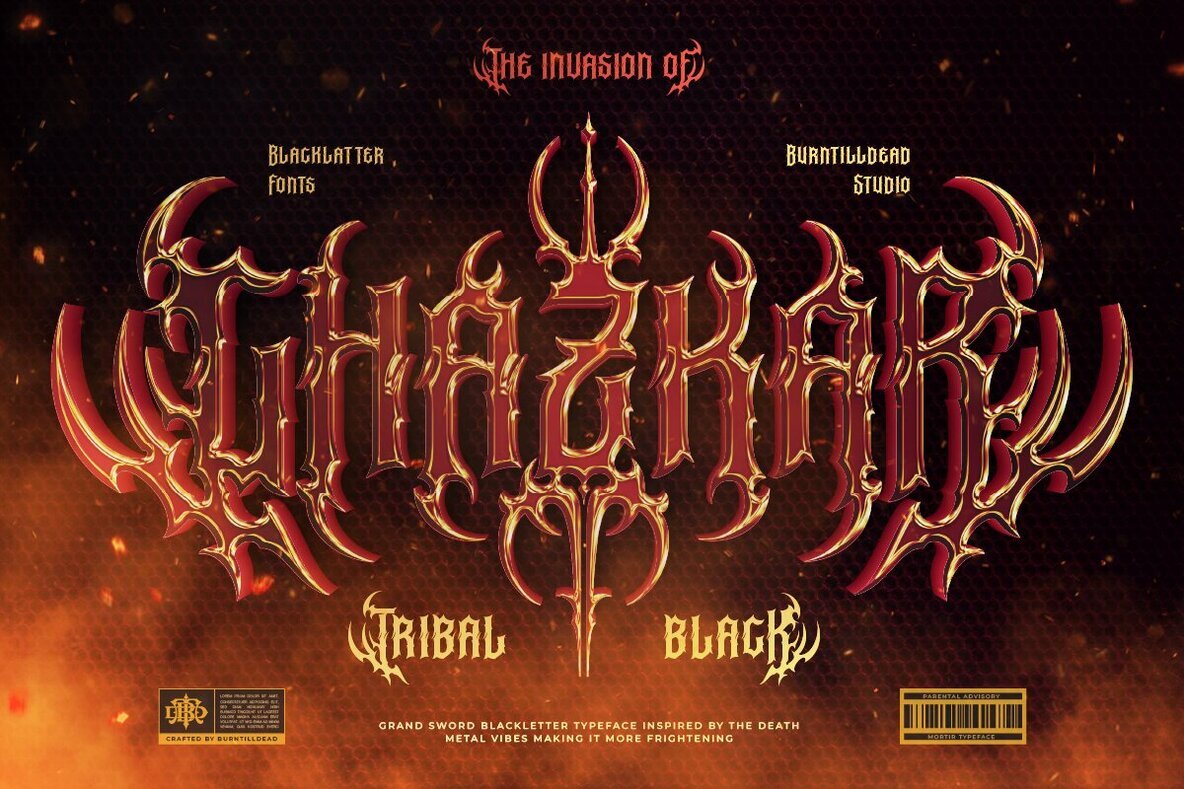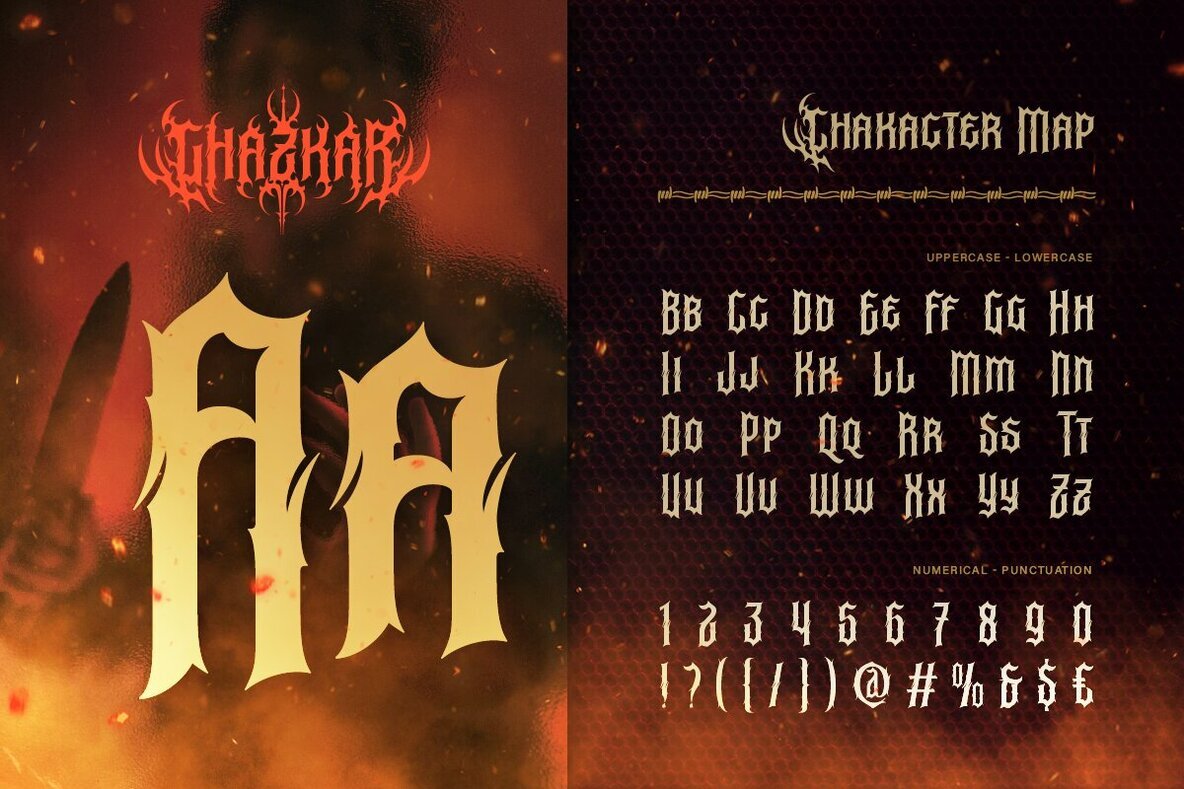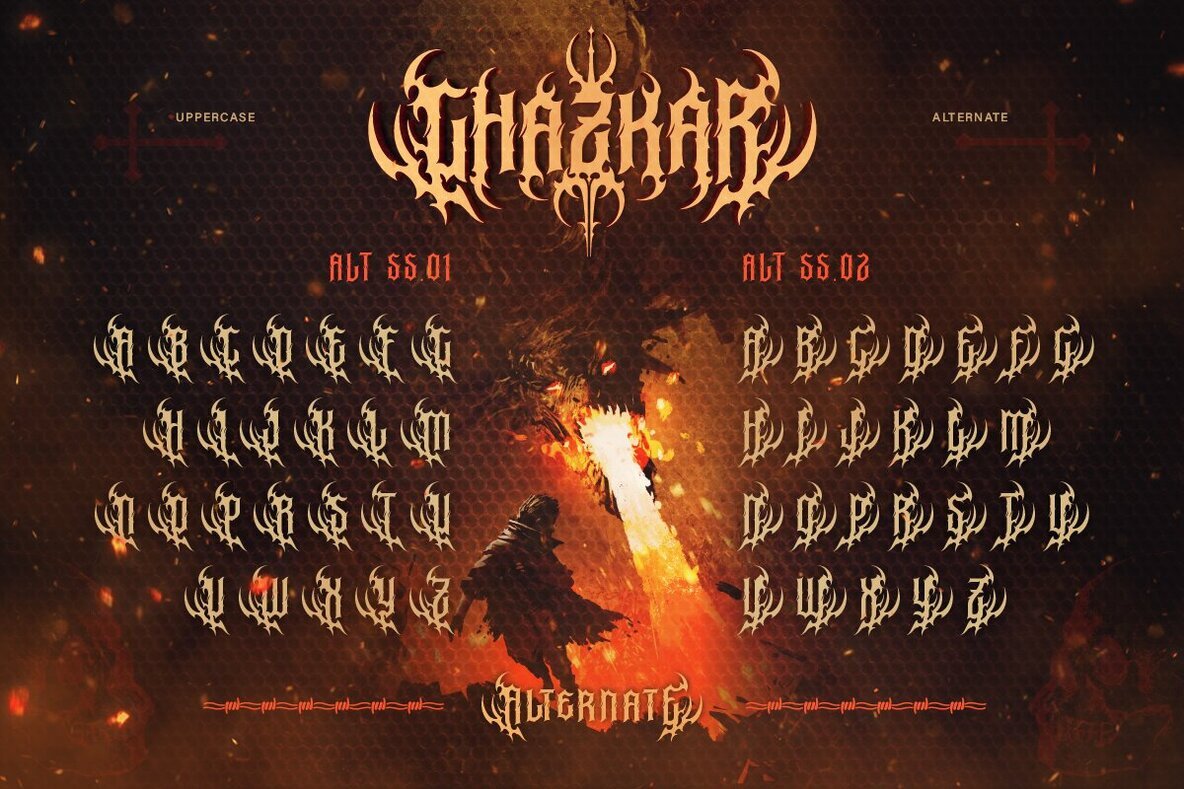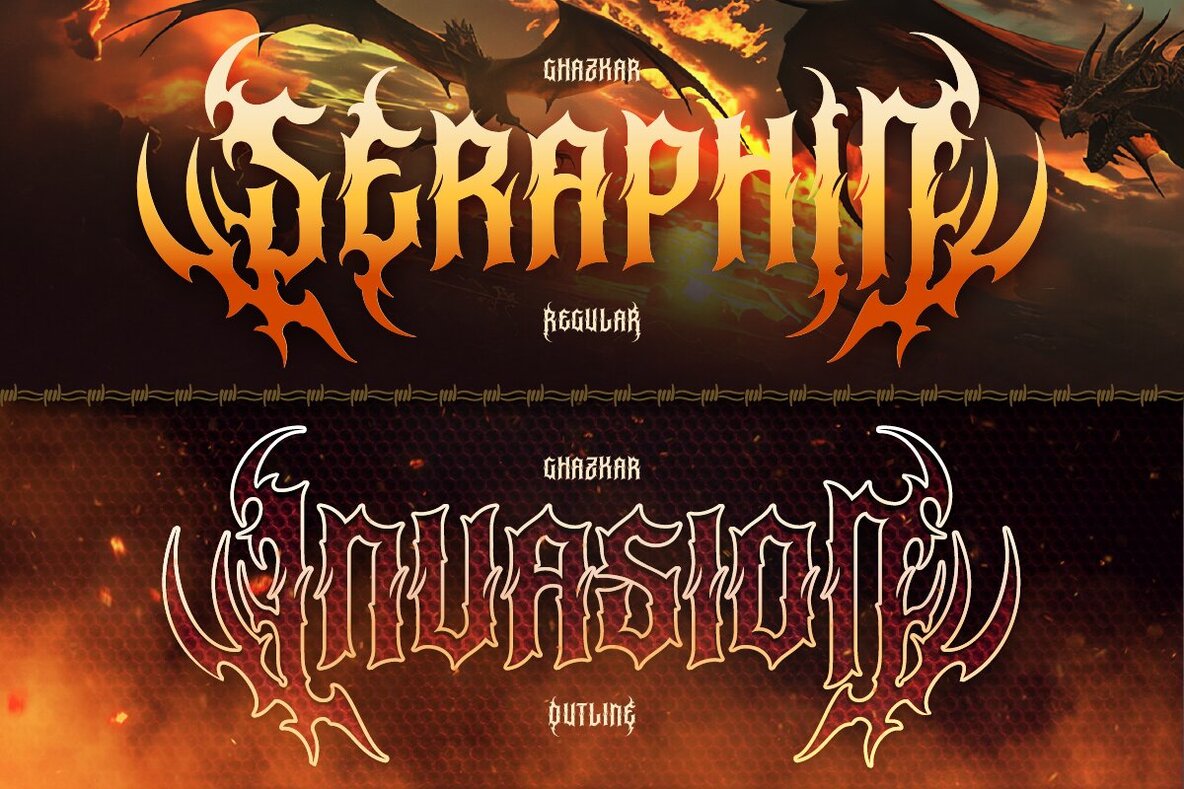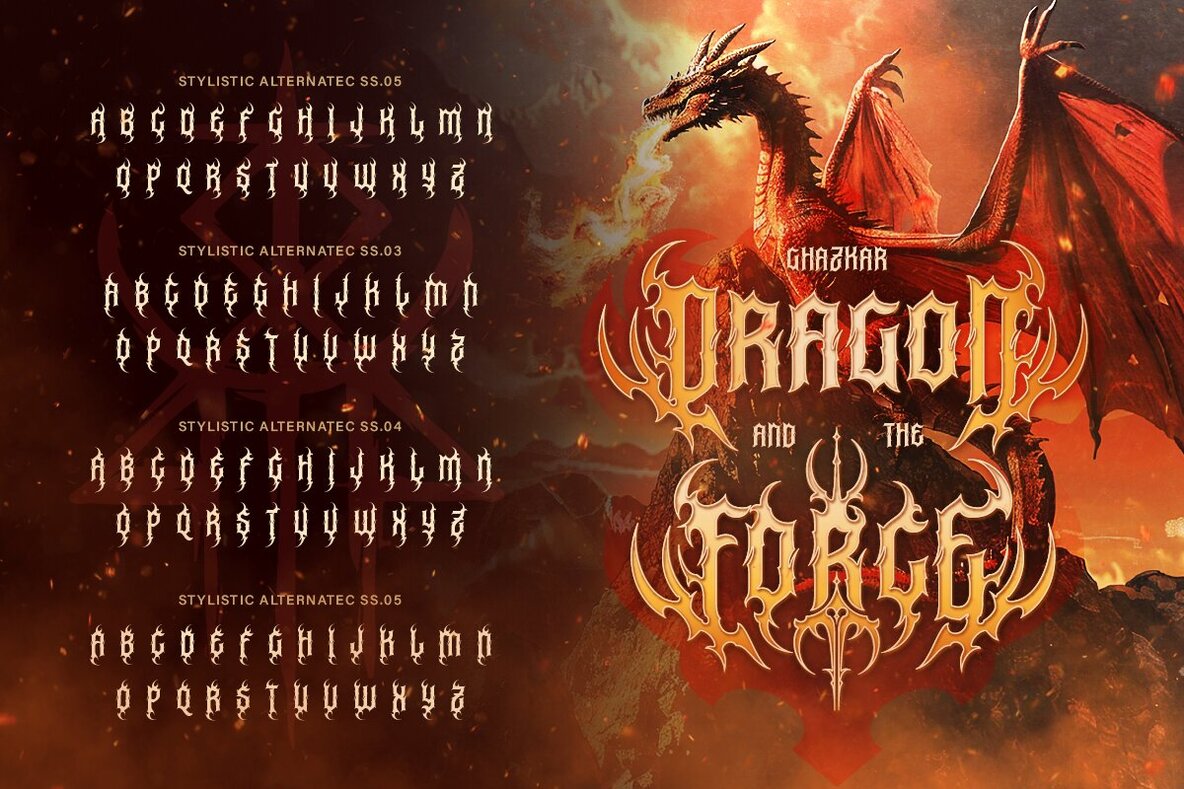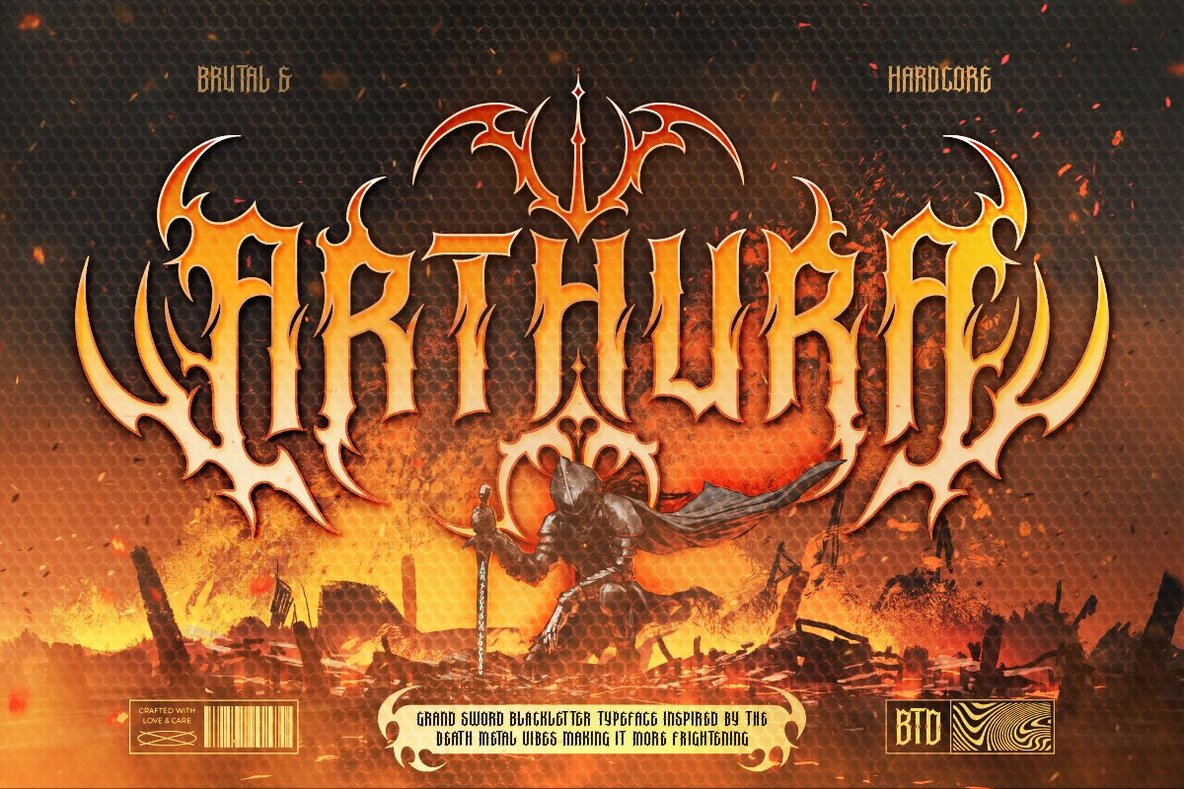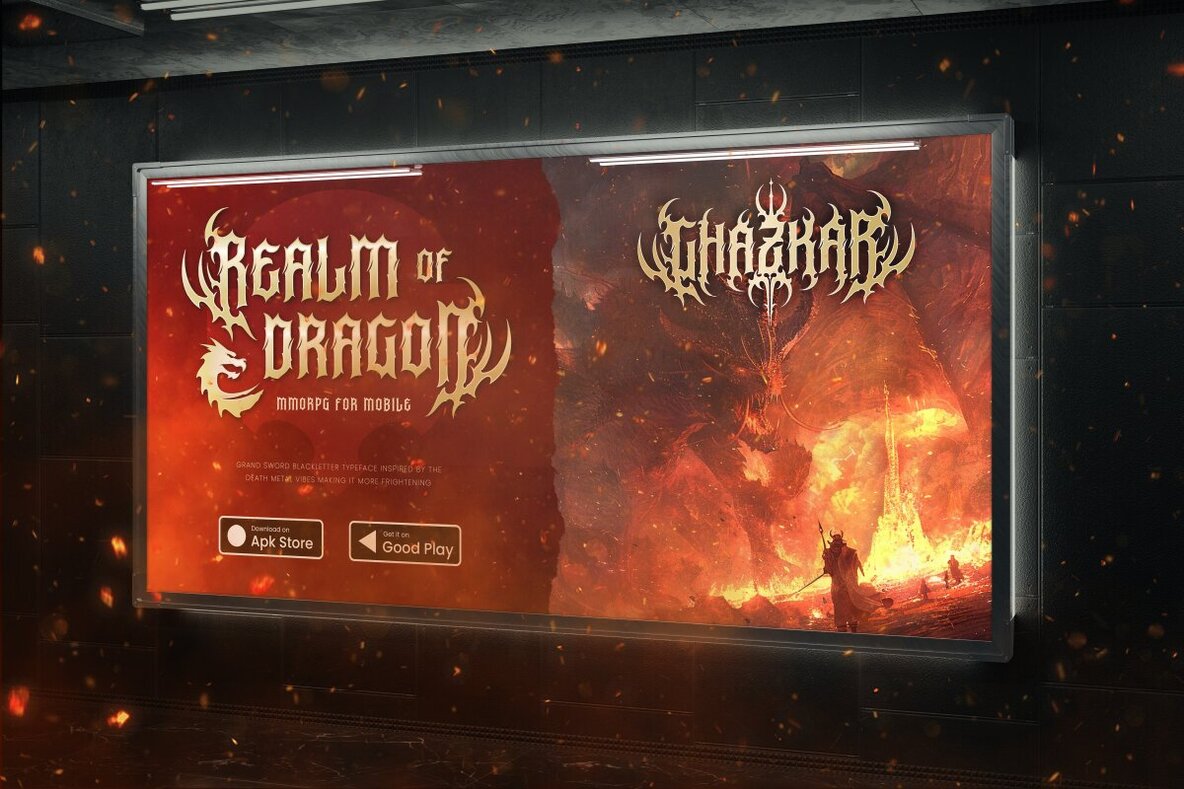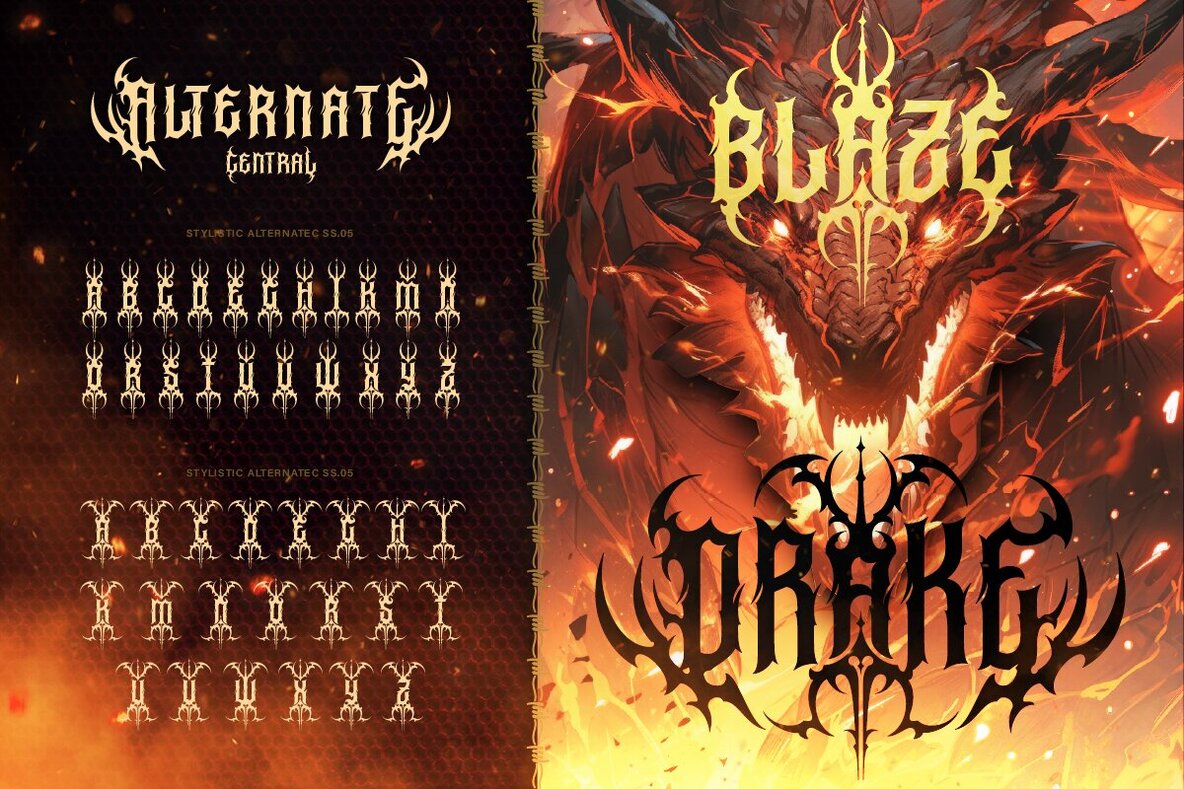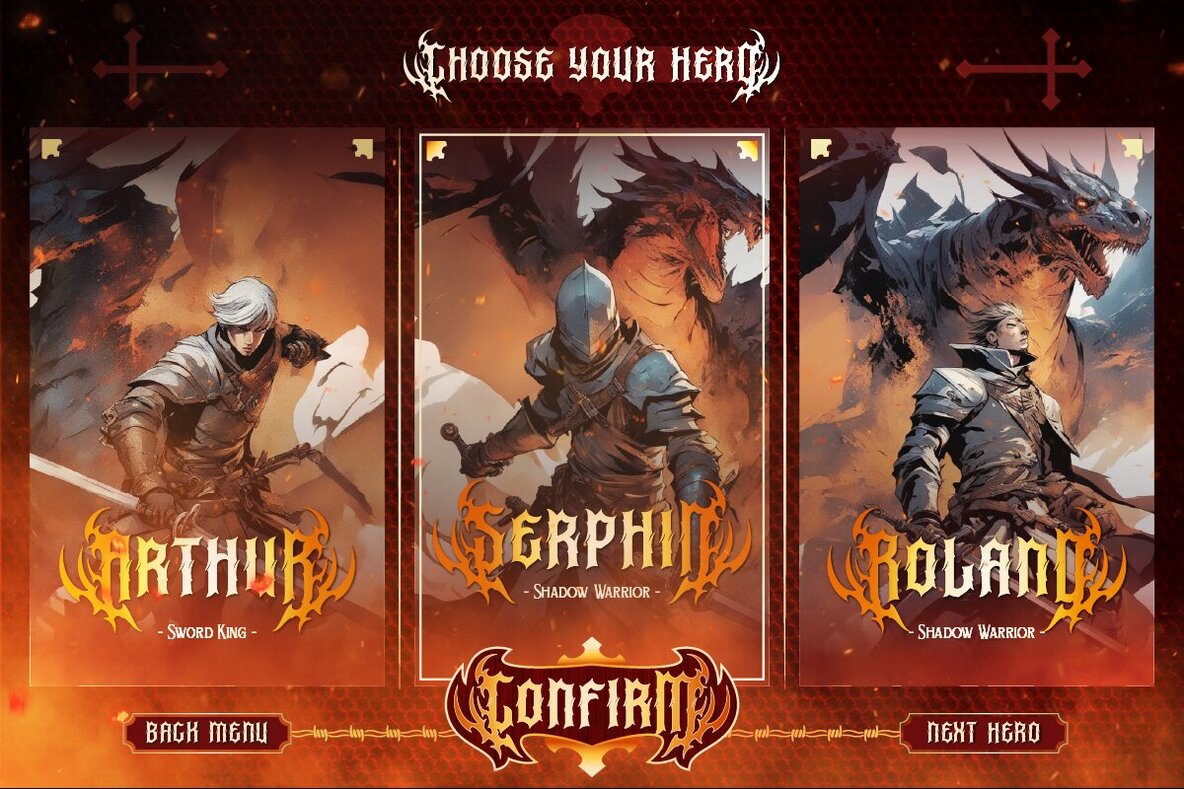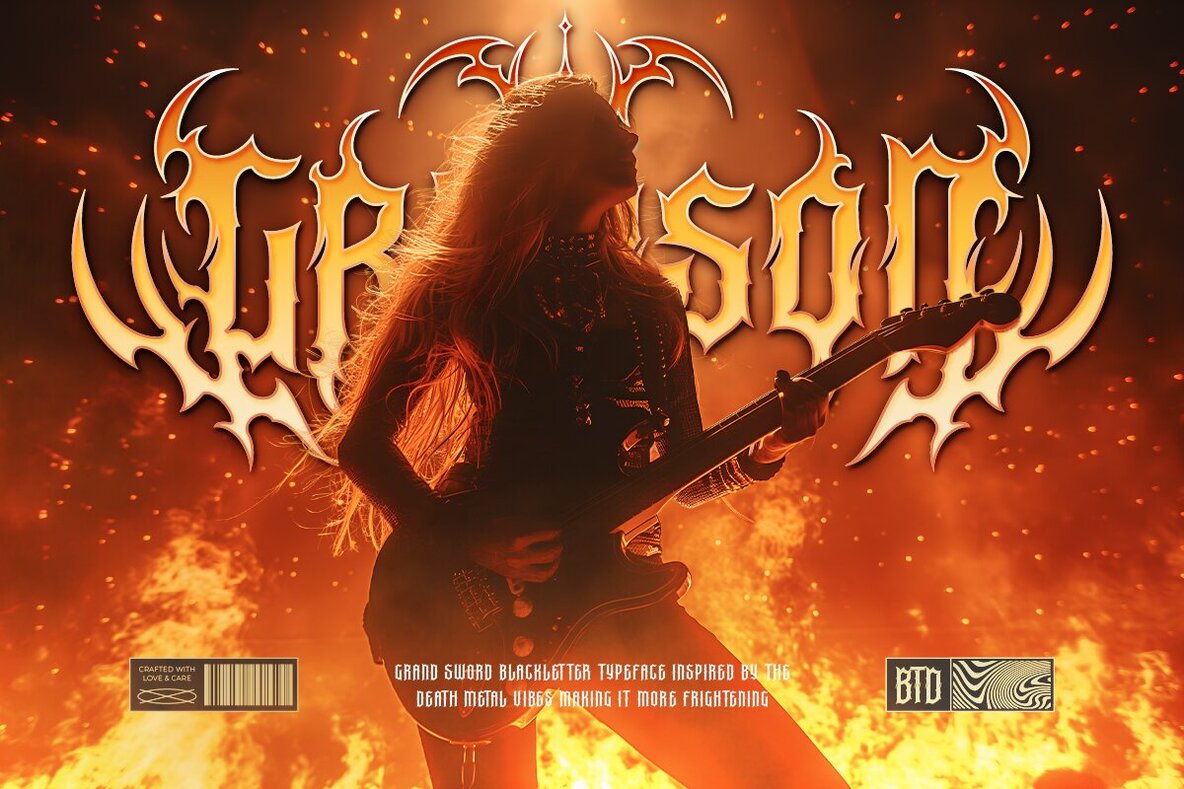
Ghazkar Font
Ghazkar Regular
Ghazkar Outline
Ghazkar, a dominant and sharp tribal blackletter typeface, offers unique character details. Its design includes extra elements such as spikes, thorns, and vine-like motifs, seamlessly integrated with the letter’s structure. This font is available in two styles: Regular and Outline. It comes equipped with an extensive array of ligatures and alternates, enabling your creativity to flow unrestrained. Ghazkar’s bold gothic style makes it ideal for dark fantasy themes, heavy metal designs, tattoo artwork, gothic horror, or any project requiring power and visual impact.Ghazkar: A Tribal Blackletter Typeface